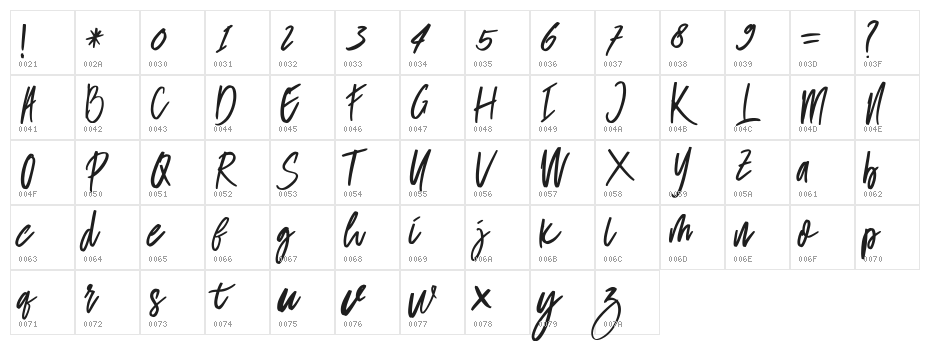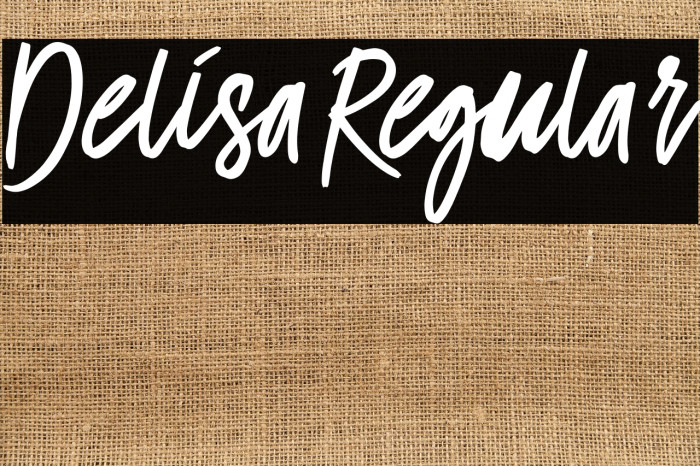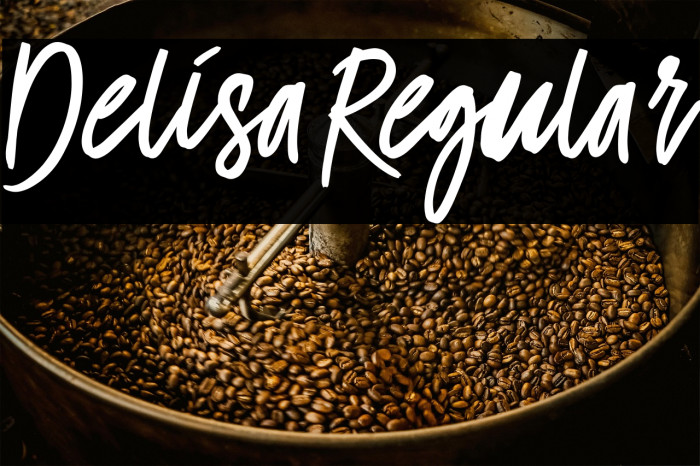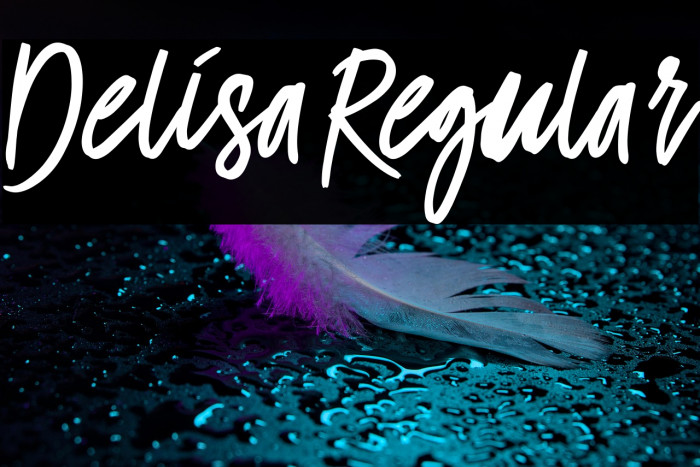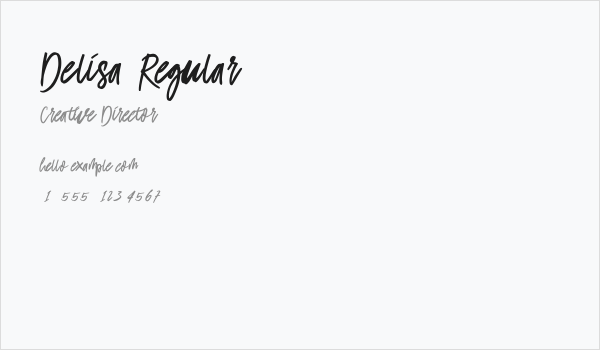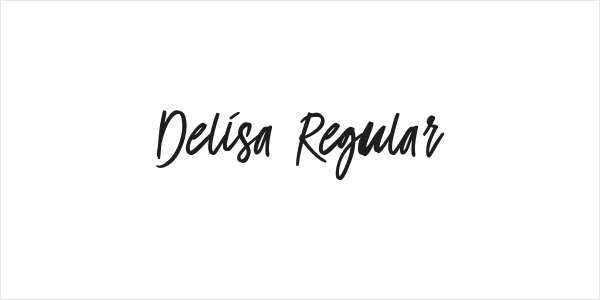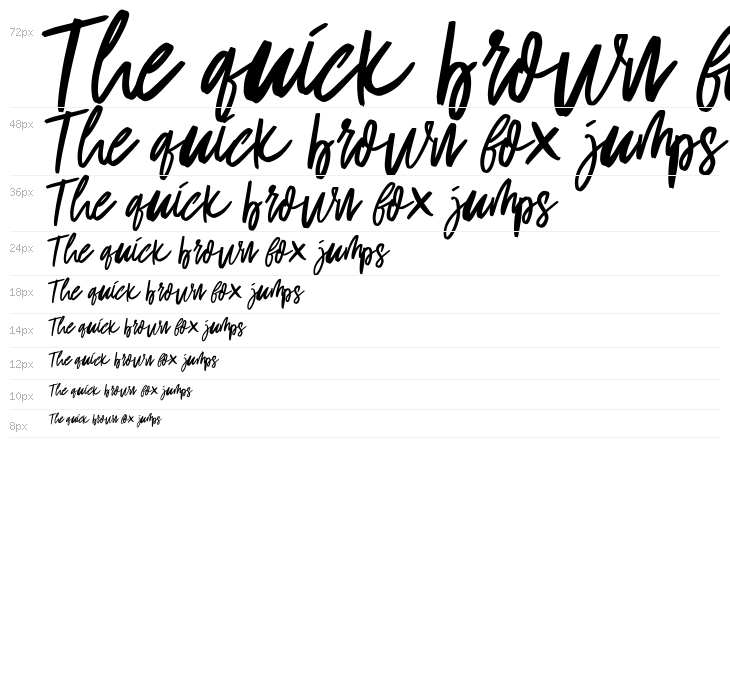
Delisa-Regular Font
Delisa-Regular Description
This font exhibits a dynamic and expressive handwritten style, characterized by its fluid and cursive strokes. The uppercase letters are tall and slightly slanted, giving a sense of movement and elegance. The lowercase letters maintain a consistent flow, with some characters featuring loops and flourishes that add to the overall aesthetic. The numerals are bold and maintain the same handwritten quality, ensuring consistency across all characters. The special characters are integrated seamlessly, maintaining the font's cohesive style. This font's energetic and artistic appearance makes it suitable for creative and informal applications.
| Proposed Projects | Ideal for greeting cards, invitations, personal branding, and creative projects requiring a personal touch. |